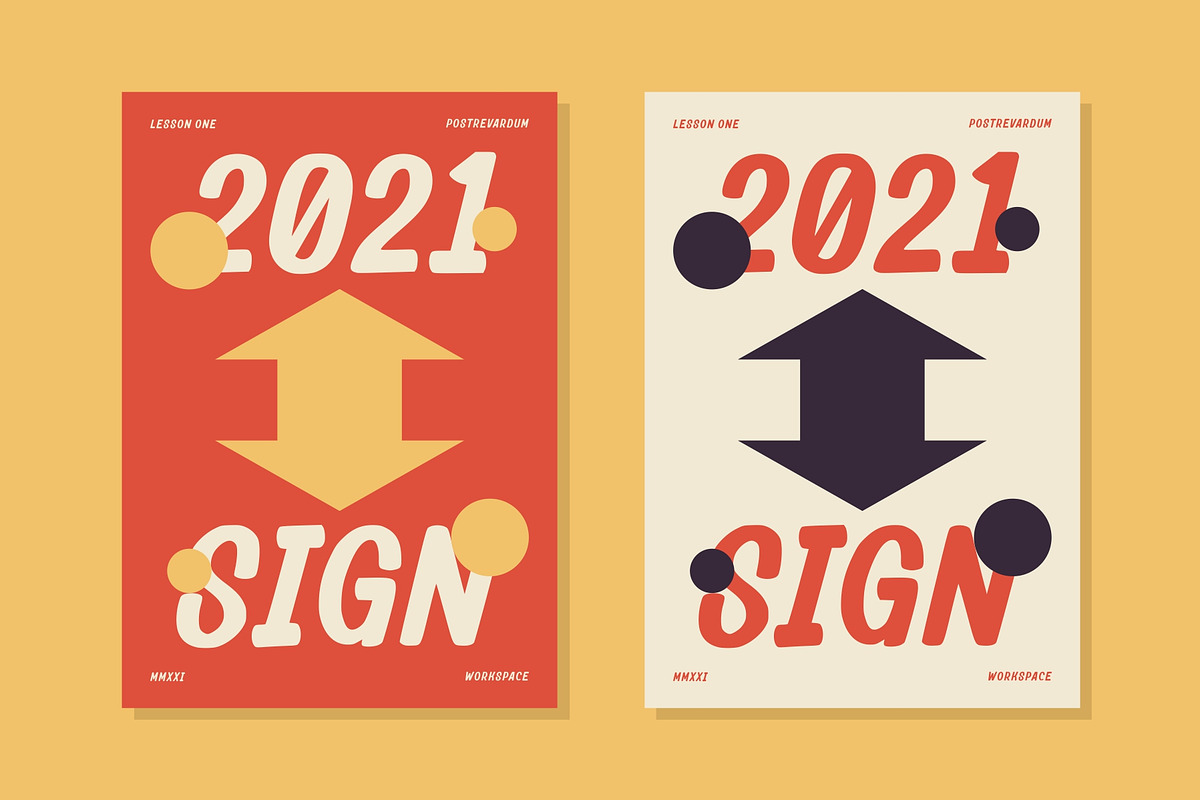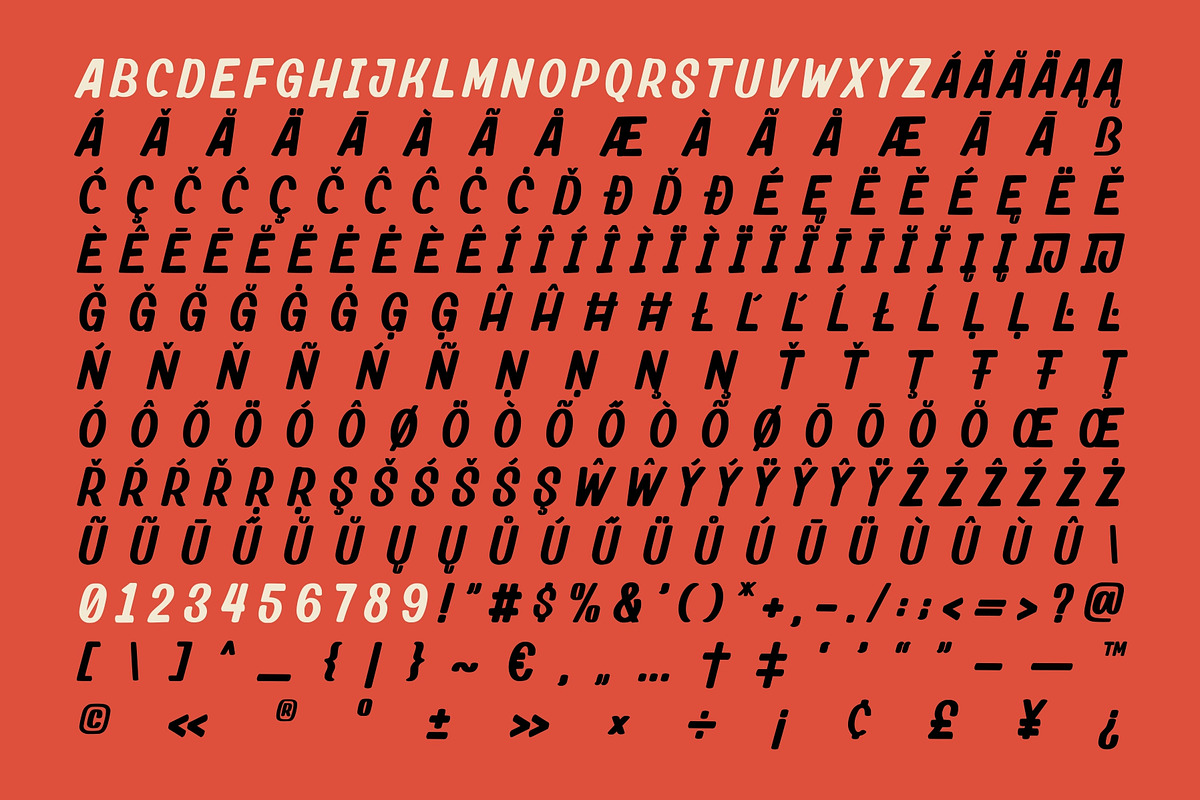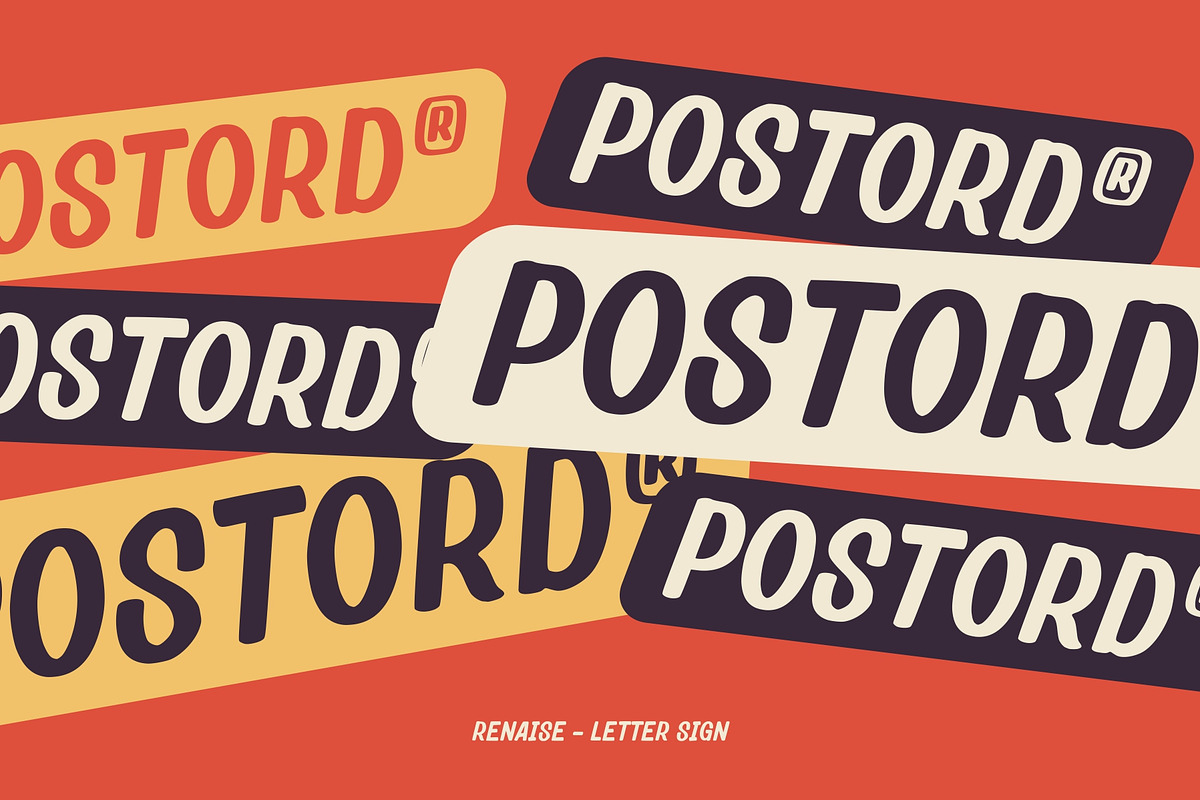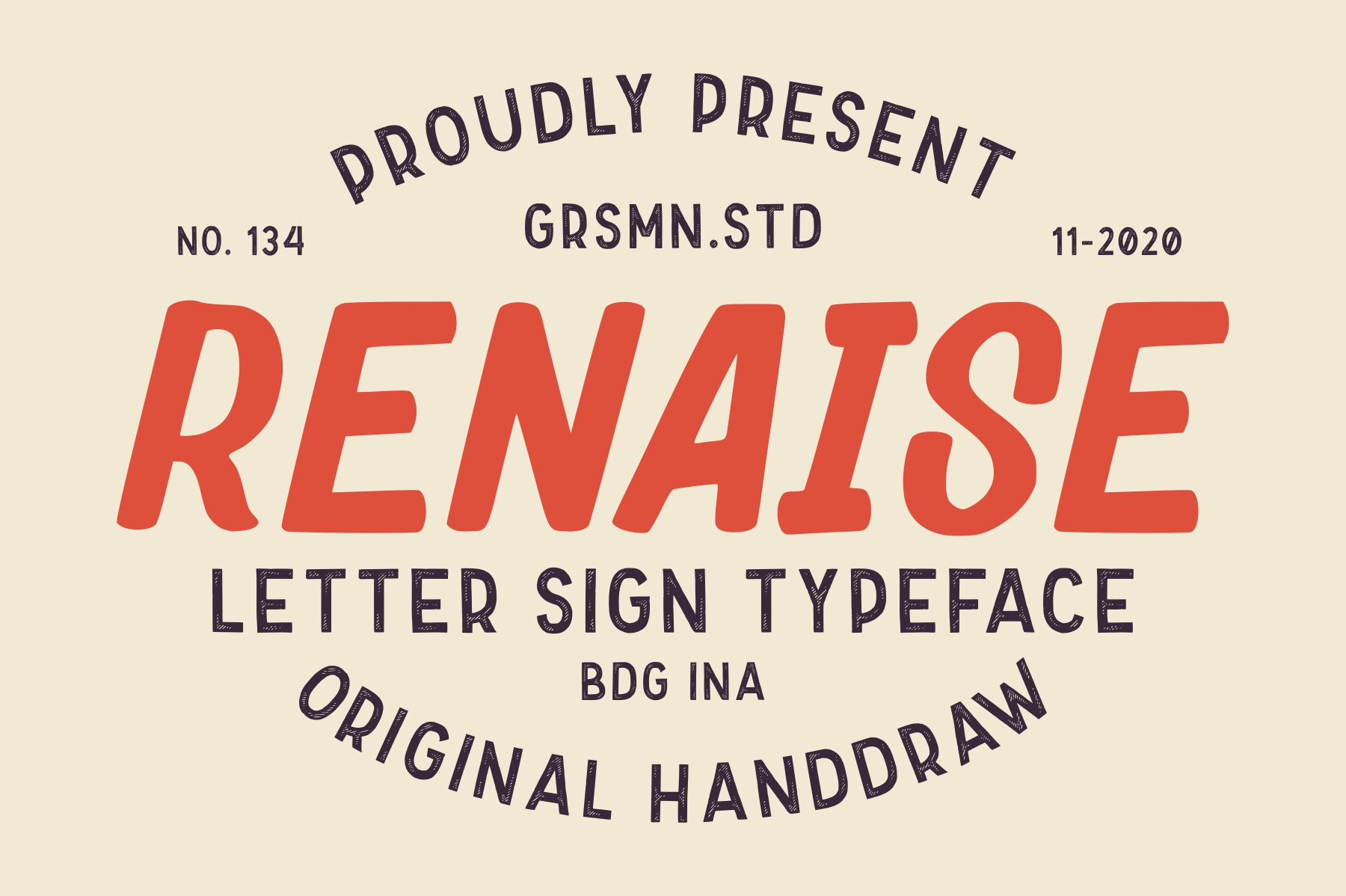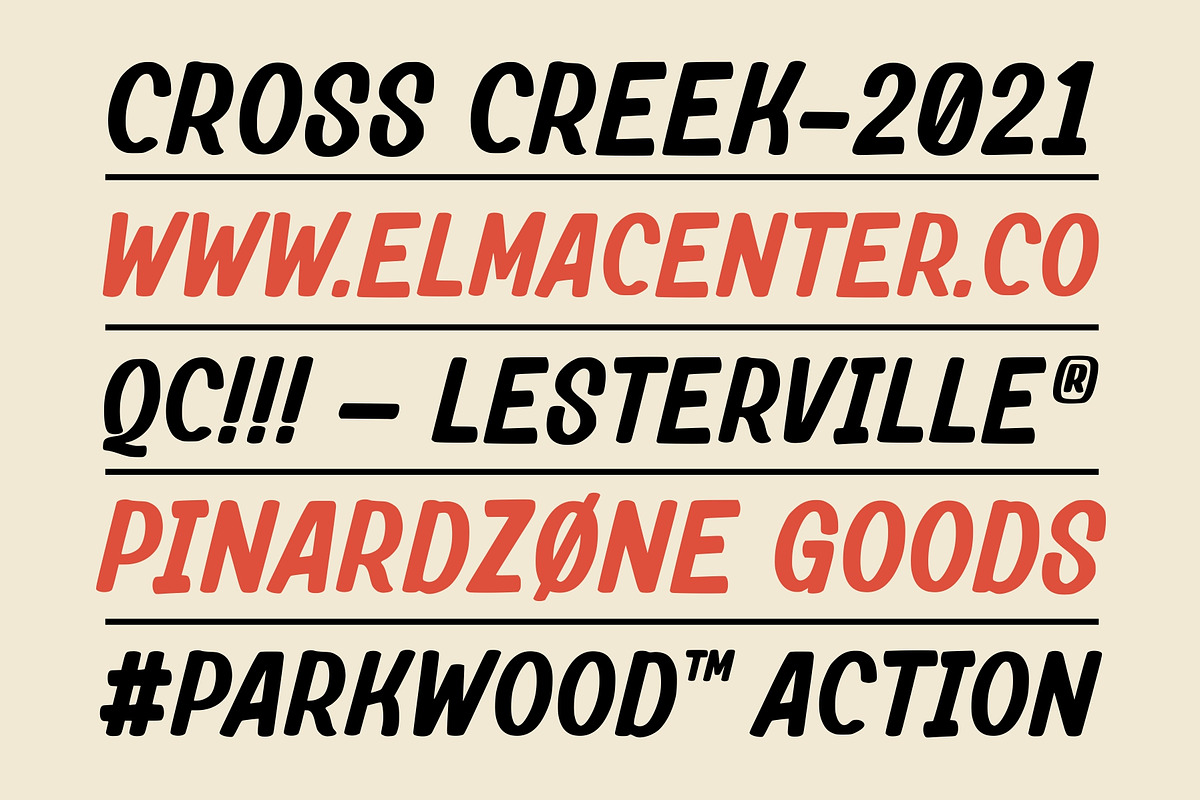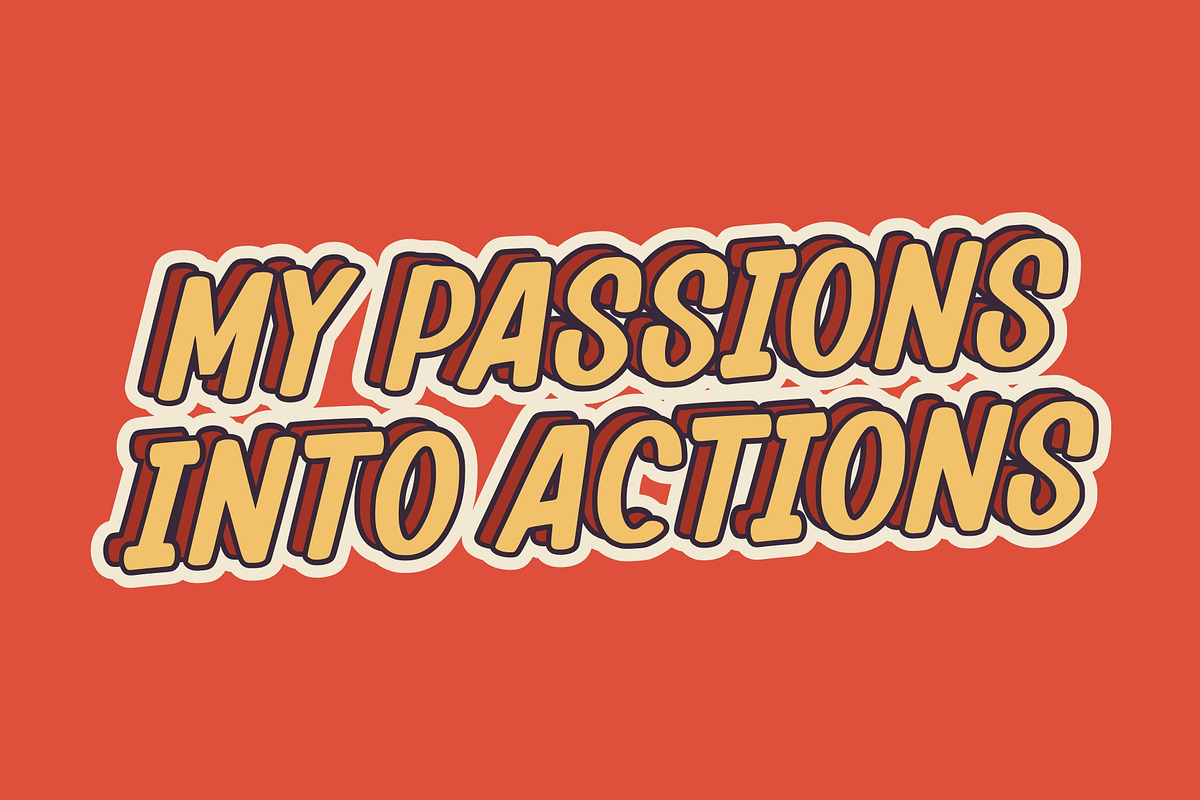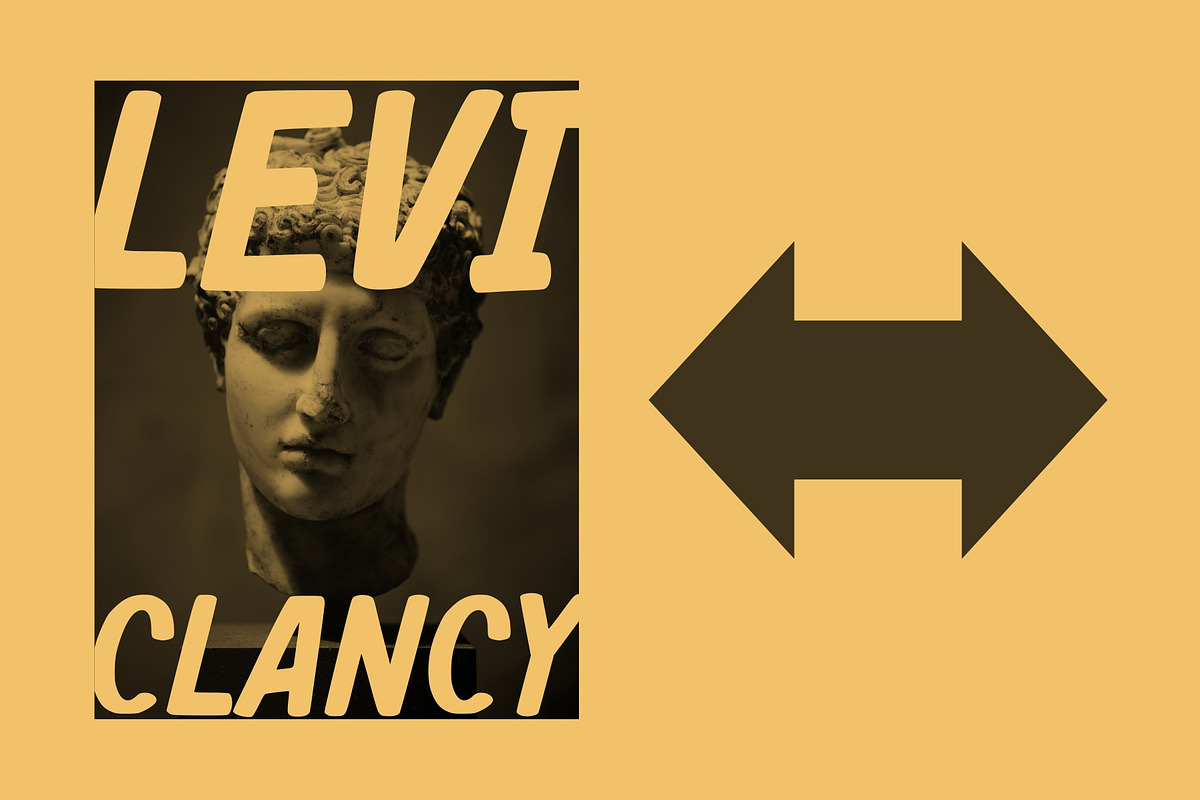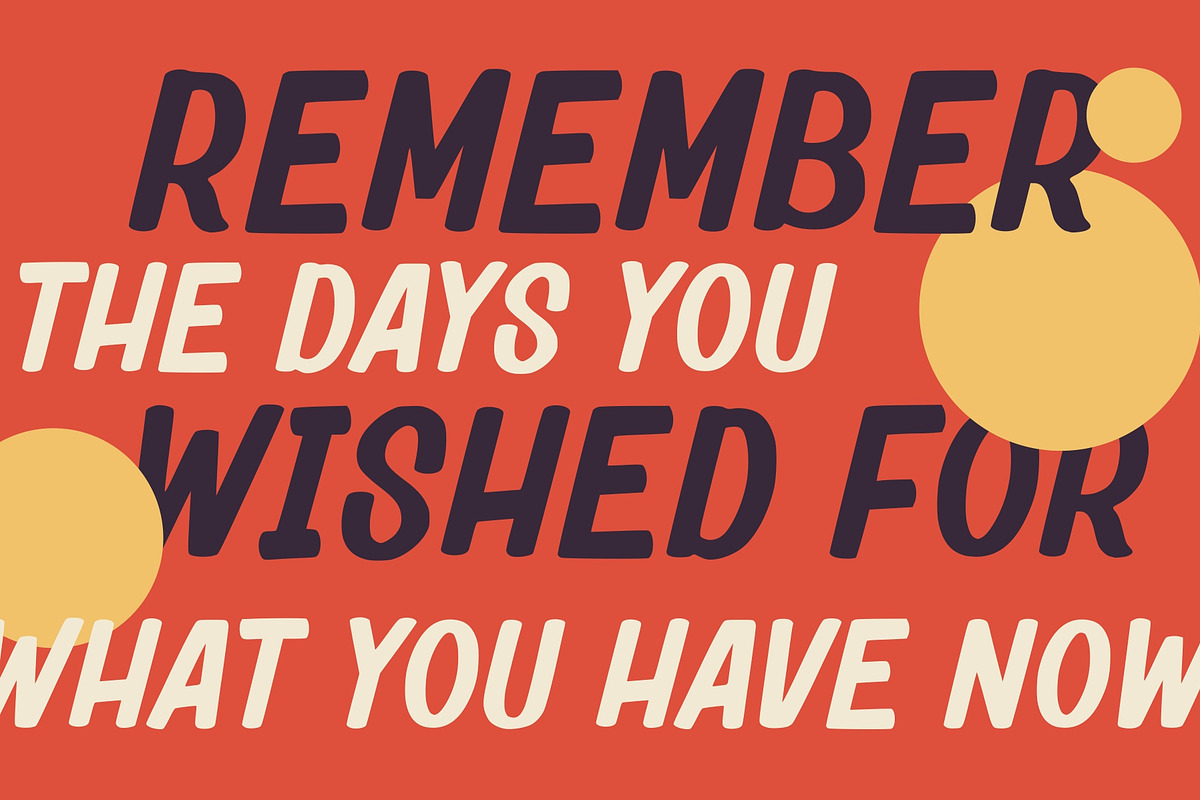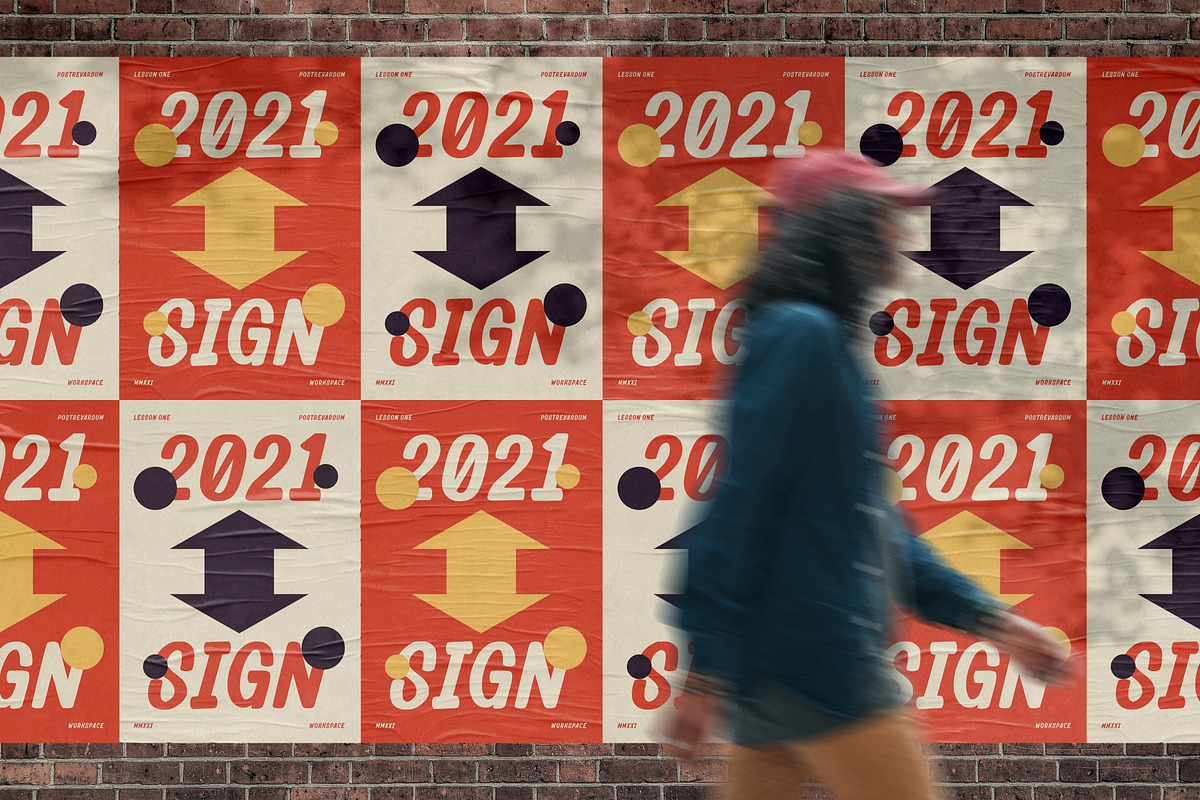
Renaise - Letter Sign Typeface
Welcome to Renaise a Letter Sign Typeface
Inspired by the old style of letters used for signs in the 60s era. Born with the old spirit and evoking new styles from the past. Renaise is able to fulfill your desire to feel the era again. Make it in your style with happiness!
You can use Renaise for the needs of making signs, signpainting, advertisements, price lists in stores, menu lists, posters, movie titles, book covers, main text in titles, clothing designs, or whatever you want by returning to the 60s era.
- All glyphs with Caps styles
- Multilingual characters (support for 26 languages)